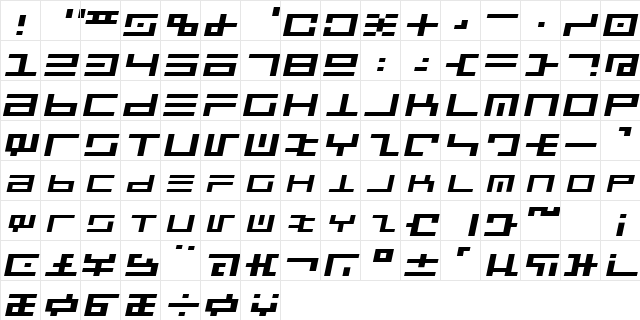
CyberspeakExtended Oblique Font Preview
CyberspeakExtended Oblique
Design Context for CyberspeakExtended Typeface
CyberspeakExtended has a distinctly futuristic character, with geometric precision and clean angles that feel at home in technology, gaming, and sci-fi contexts. The slanted form adds forward momentum and visual energy.